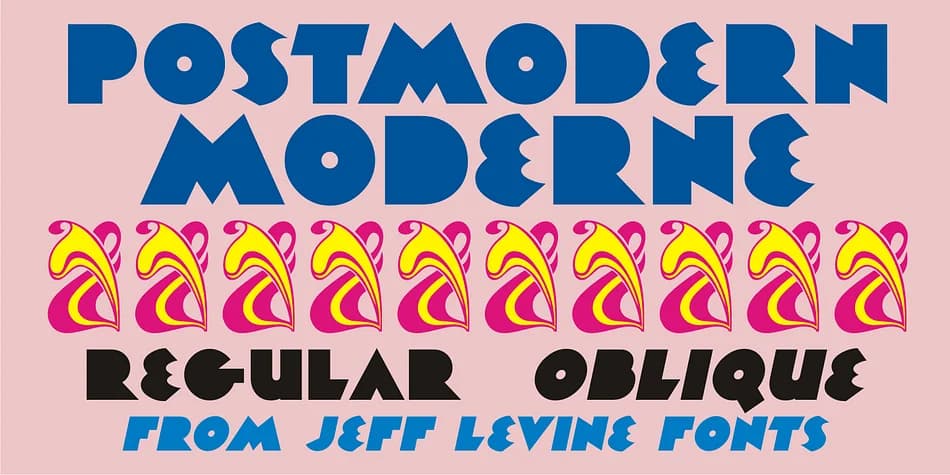
About POSTMODERN MODERNE JNL Font
Picture an Art Deco entrance hallway with a sleek marquee above the door, or a vintage cosmetics tin from the 1930s. That's where Postmodern Moderne JNL, created by Jeff Levine Fonts, truly belongs. This typeface draws directly from a striking geometric sans serif discovered in Paul Carlyle and Guy Loring's 1938 textbook, Letters and Lettering, a comprehensive guide to lettering styles and techniques. Its design was rendered as a bold, solid form without interior counterspace, embodying the graphic restraint and geometric precision the Art Deco era demanded.
The typeface excels in retro packaging design, art deco-themed wedding announcements, speakeasy-style event signage, and vintage salon branding. Its counterless letterforms sing at large display sizes, delivering that punchy graphic presence necessary for standout headlines and vintage album covers that harken back to the 1930s. The weight feels substantial and commanding, refusing to whisper when your design needs to declare itself with style and confidence.
You get both regular and oblique versions, so you can introduce movement and rhythm into layouts where an angled tilt makes all the difference. If you're chasing that authentic 1930s geometric confidence for your next retro-inspired project, grab Postmodern Moderne JNL on Creative Fabrica and bring that era to life.
POSTMODERN MODERNE JNL Font is a decorative font that shines as a display or heading face. Pair it with a clean sans-serif or serif font for body text β the contrast creates a clear hierarchy while the two styles stay balanced and easy to read.